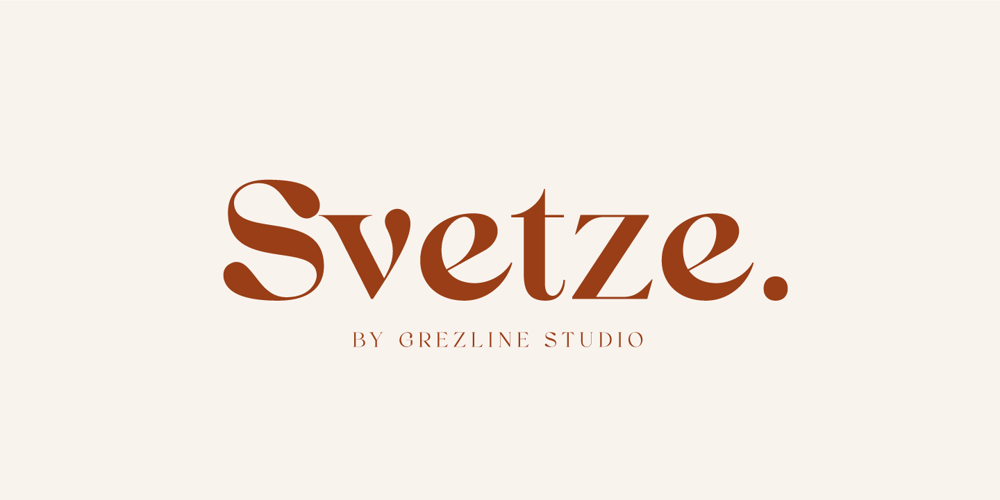
Svetze Font Family was designed by Akhmad Reza Fauzi and published by Grezline Studio. Svetze contains 4 styles and family package options. Svetze is an elegant display font family consist of 4 weights. This font is crafted for fashion design purposes, but you can also use this font for other needs such as logos, labels, magazines, books, greeting / wedding cards, packaging, stationery, novels, labels and etc.Feature : Alternates and Ligatures Multilingual Language Works on PC & Mac Simple installations Accessible in the Adobe Illustrator, Adobe Photoshop, Adobe InDesign, even works on Microsoft Word. We highly recommend using a program that supports OpenType features and Glyphs panels like many of Adobe apps and Corel Draw, so you can see and access all Glyph variations.Thank You!Grezline Studio – Akhmad Reza Fauzi